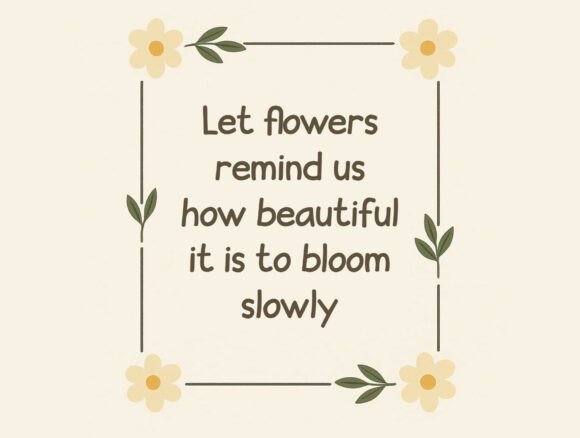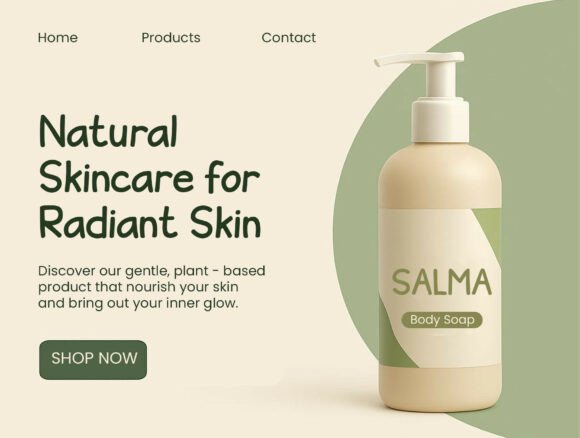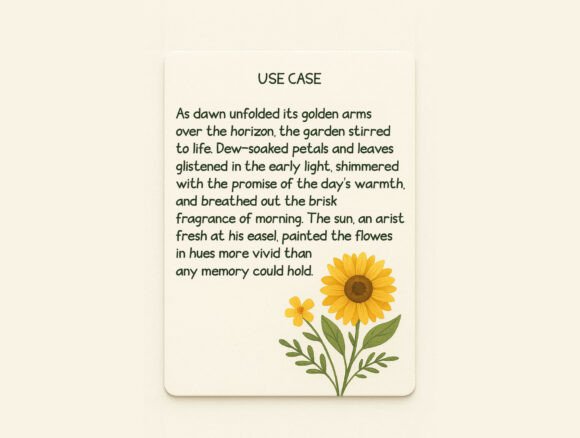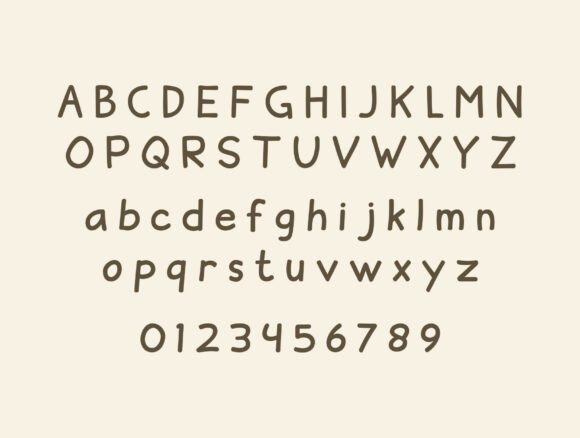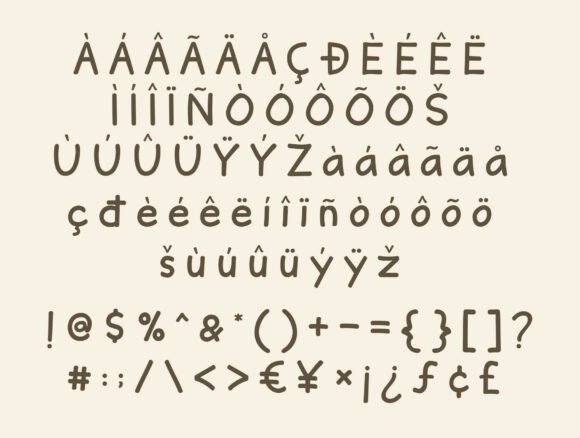
Introduction to Morning Bloom Font
Embrace the warmth of a sunny garden with Morning Bloom, a charmingly organic handwritten font designed to bring a touch of nature to your digital canvas.
With its soft, rounded terminals and playful, uneven strokes, this font captures the authentic essence of a hand-penned note Its approachable and friendly personality makes it the perfect choice for projects that require a gentle, human touch.
Key Features of Morning Bloom Font
Why Choose Morning Bloom Font?